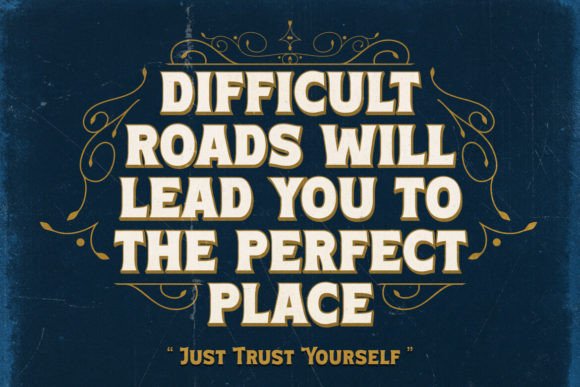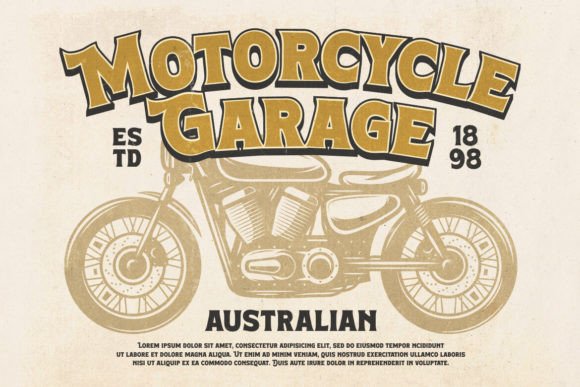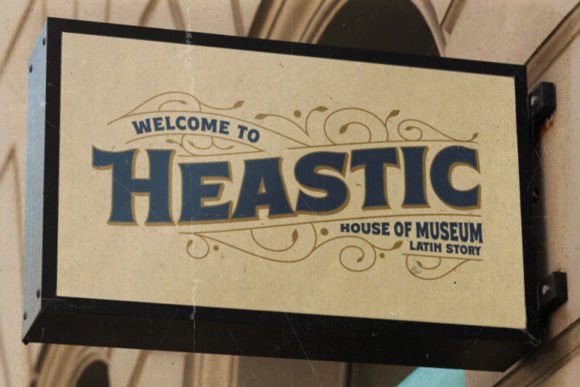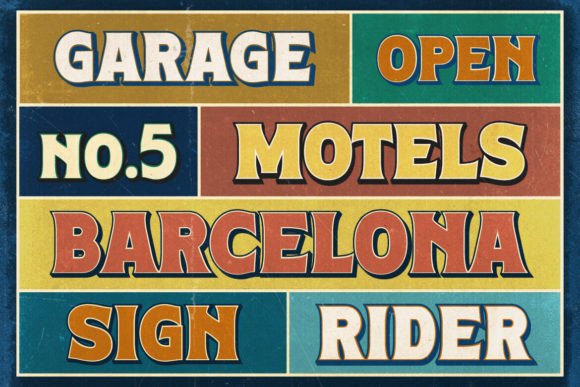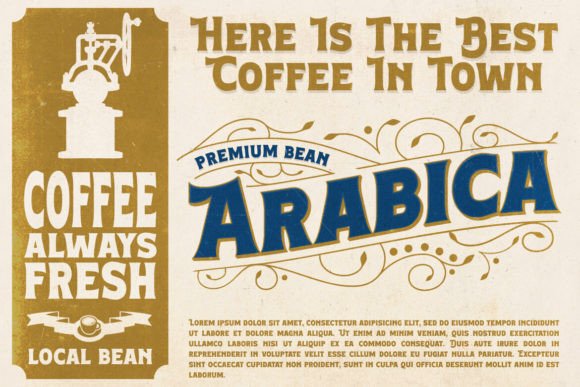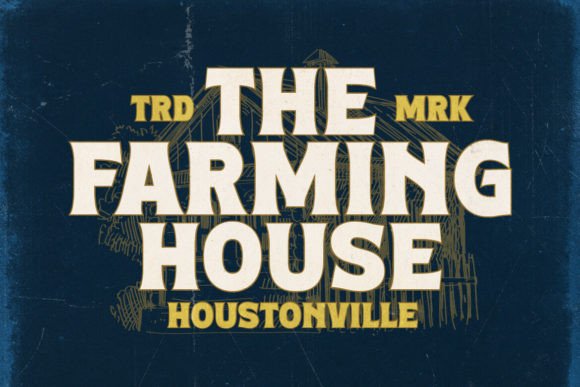
Boldern Font: Elevate Your Designs with Vintage Charm
In the realm of typography, few things evoke the same sense of nostalgia and elegance as vintage typefaces. Among these, the Boldern font stands out as a remarkable example of classic design that can add a touch of old-time charm to any project. Whether you’re a designer looking to infuse your work with a sense of history or a crafter aiming to create something uniquely beautiful, Boldern is a vintage typeface that should not be overlooked.
The Essence of Boldern Font
Boldern is more than just a font; it’s a journey back in time. This vintage typeface is characterized by its classic lines, elegant curves, and a distinctive boldness that makes it stand out. It’s designed to mimic the typography of the past, offering a level of sophistication and charm that’s hard to find in modern fonts. With Boldern, you can add a vintage flair to your designs, making them instantly more captivating and memorable.
Why Choose Boldern for Your Projects?
There are several reasons why Boldern should be your go-to font for projects that demand a vintage aesthetic:
• Elegance and Sophistication: Boldern brings an unparalleled level of elegance to any design. Its classic design ensures that your projects exude sophistication, making them perfect for luxury brands, event invitations, and high-end product packaging.
• Nostalgic Appeal: For those looking to evoke a sense of nostalgia, Boldern is the perfect choice. Its vintage appeal can transport your audience back in time, creating a unique emotional connection with your design.
• Versatility: Despite its vintage roots, Boldern is incredibly versatile. It can be used in a variety of contexts, from digital platforms like websites and social media to print materials such as brochures, posters, and business cards.
• Readability: One of the key features of Boldern is its readability. Even in smaller sizes, the font remains clear and legible, making it suitable for body text as well as headings.
How to Use Boldern in Your Designs
Incorporating Boldern into your design projects is straightforward. Here are a few tips to get you started:
• Pair it with Modern Fonts: For a striking contrast, pair Boldern with a modern sans-serif font. This combination can create a visually appealing hierarchy in your design.
• Experiment with Colors: Boldern looks great in a variety of colors, but it’s particularly striking in rich, bold hues. Don’t be afraid to experiment with different colors to find the perfect match for your design.
• Play with Sizes: The beauty of Boldern lies in its versatility. Play with different font sizes to create emphasis and hierarchy in your design.
Boldern is a vintage typeface that offers a unique blend of elegance, nostalgia, and versatility. Whether you’re working on a branding project, designing a website, or crafting something special, Boldern can add a touch of old-time charm that’s sure to captivate your audience. Don’t miss the opportunity to infuse your designs with the sophistication and charm of vintage typography. Make Boldern your companion on your creative journey and discover the difference it can make.